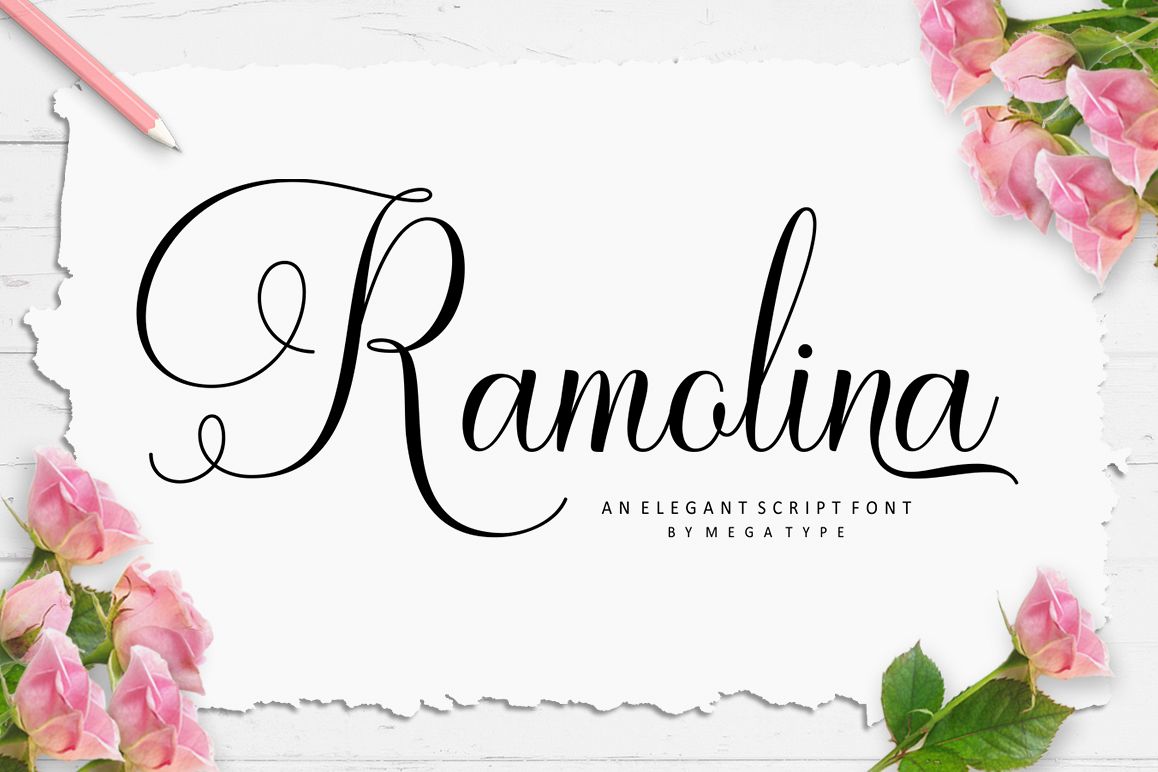
Ramolina Script
Ramolina is an elegant calligraphy script font that comes with lovely alternates character. a mixture of from copperplate calligraphy with handlettering style. Designed to convey style elegance. Ramolina is attractive like a smooth, elegant, clean, feminine, sensual, glamorous, simple and highly legible typeface. Its classic style is perfect to be applied in any type of formal pieces such invitations, labels, certificate, menus, Logos, fashion, make up, stationery, letterpress, romantic novels, magazines, books, greeting / wedding cards, packaging, badges etc.
Ramolina features 400+ glyphs and 200+ alternative characters. including multiple language support. With OpenType features with stylistic alternates, ligatures and swash characters, that allows you to mix and match pairs of letters to fit your design.